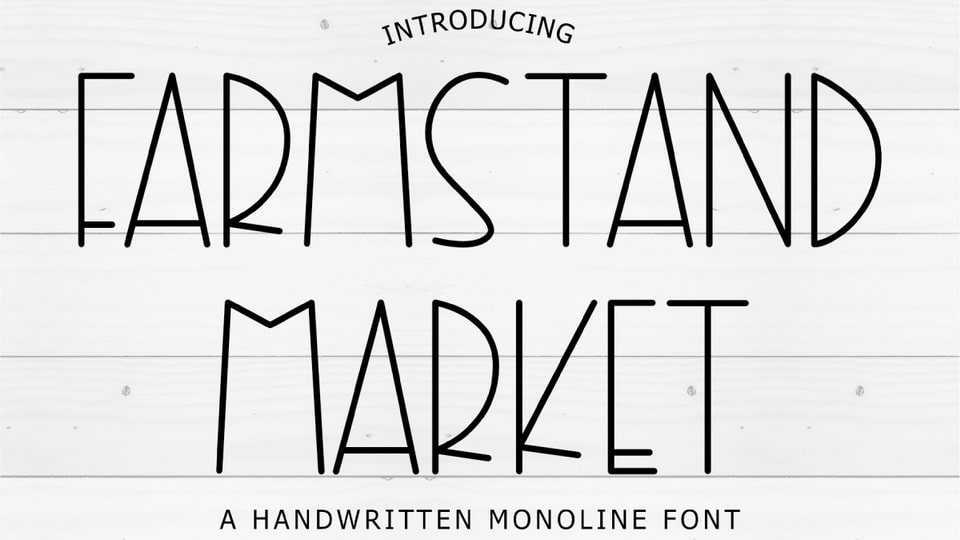
Download Farmstand Market font, a tall and skinny handwritten typeface. Farmstand Market will add an incredibly joyful touch to your design’s farmhouse.